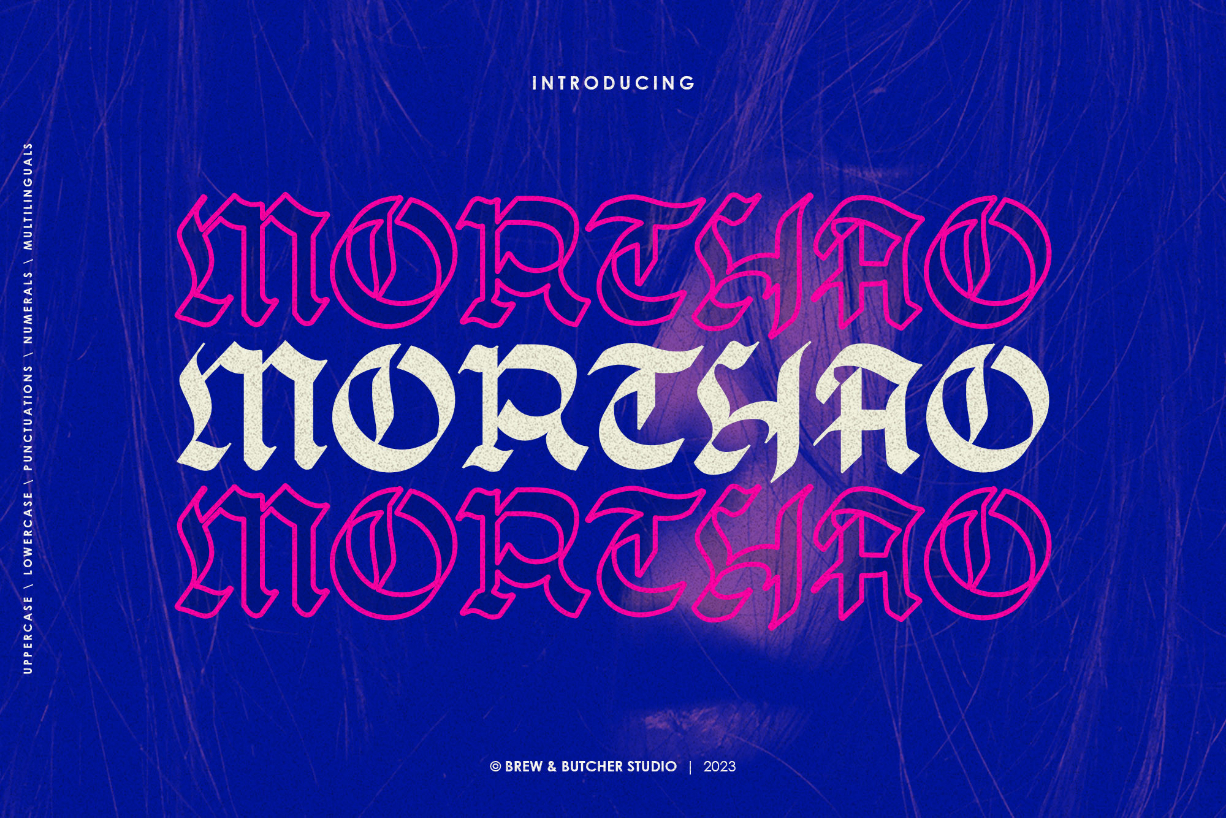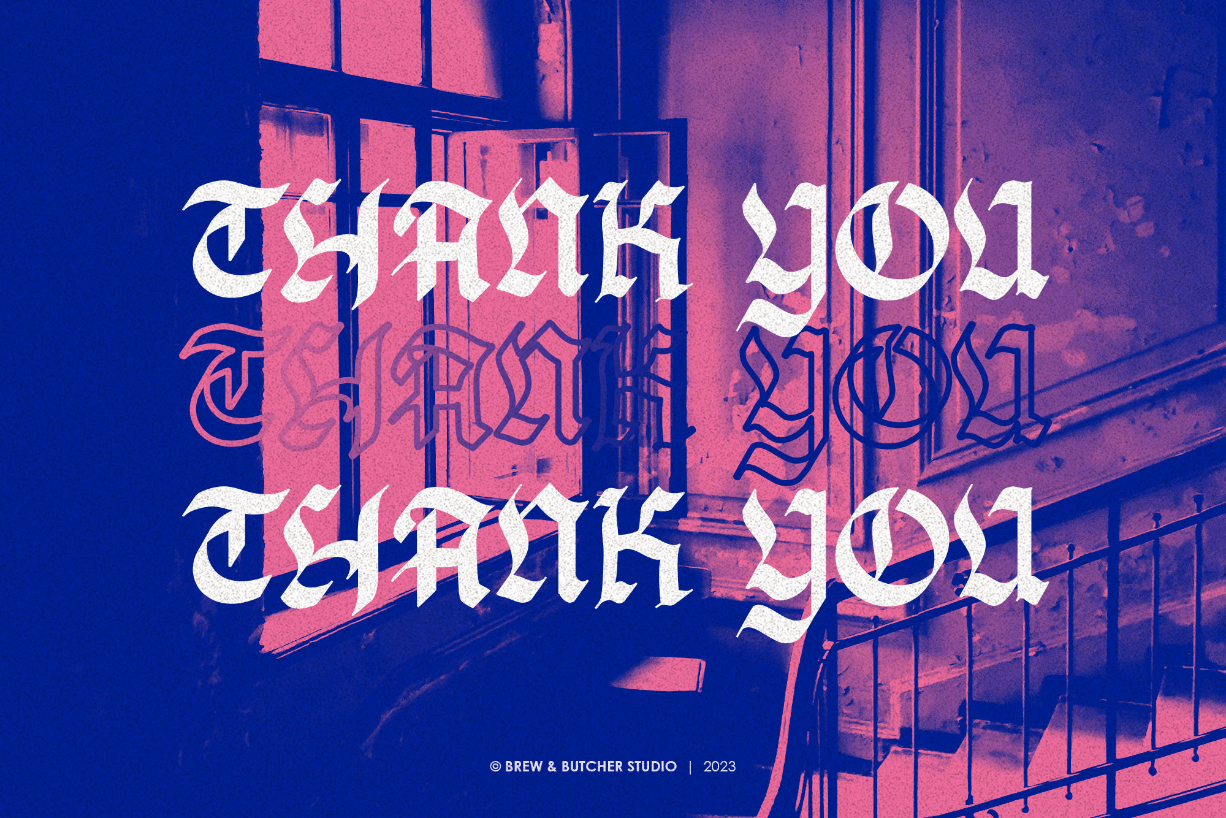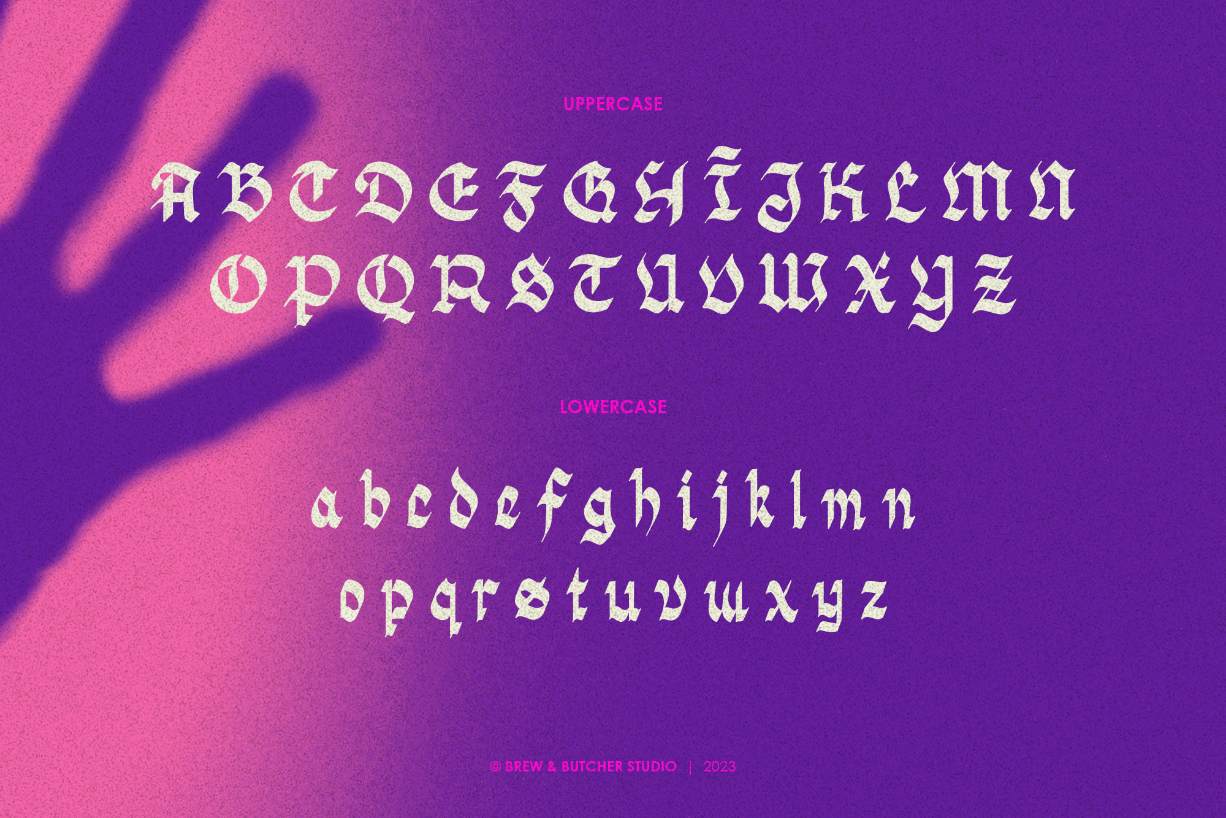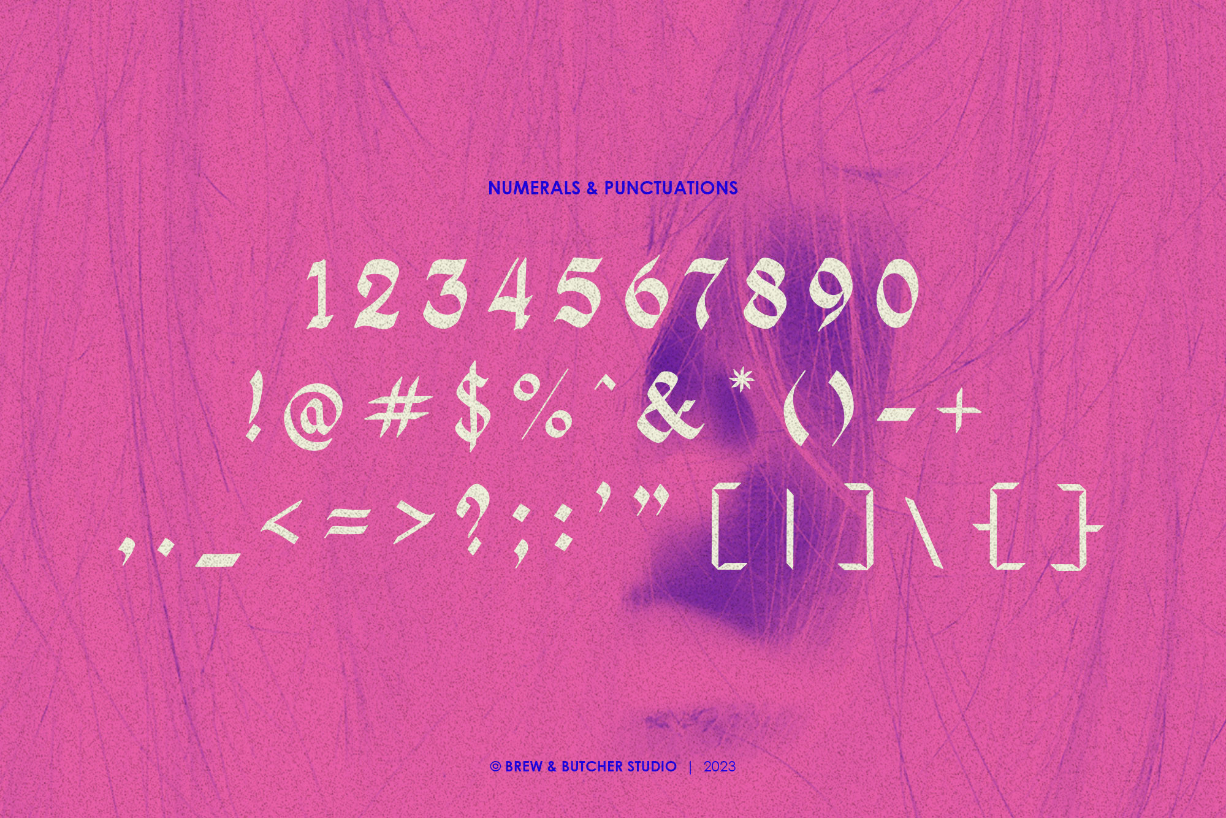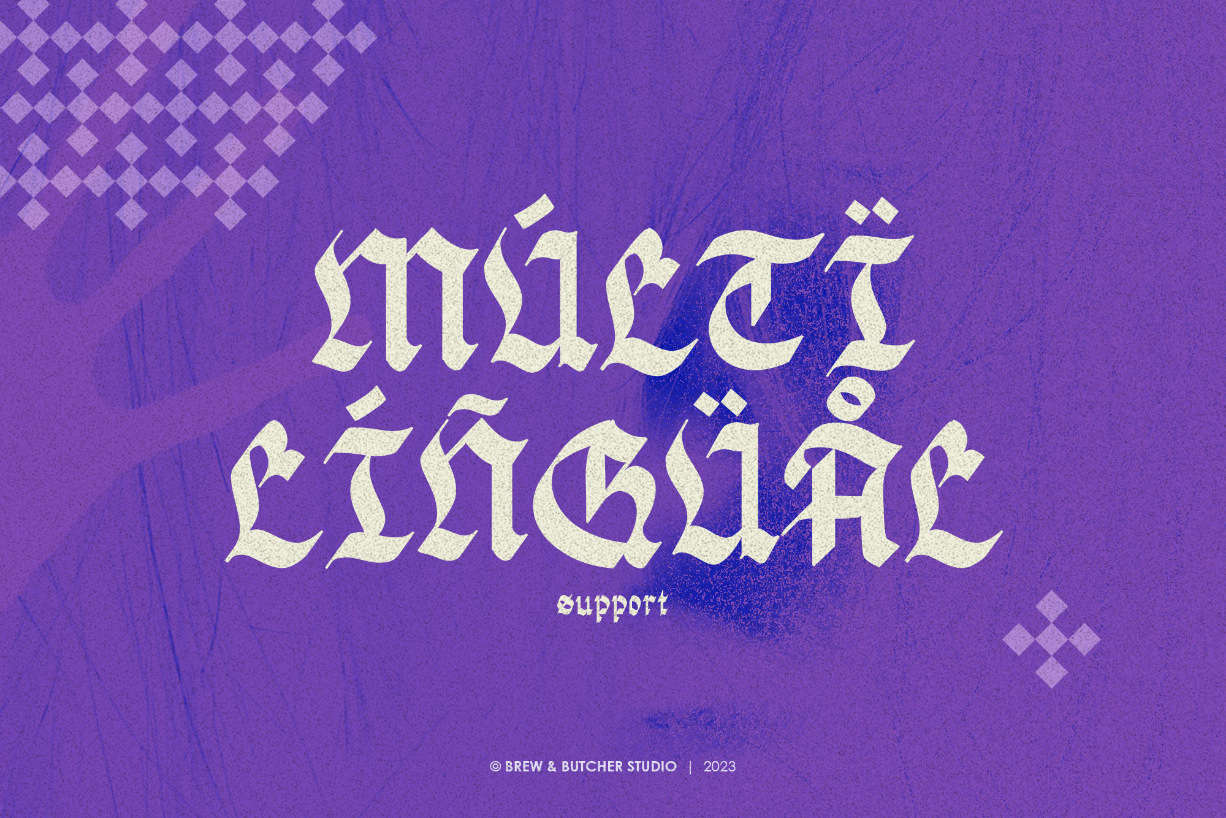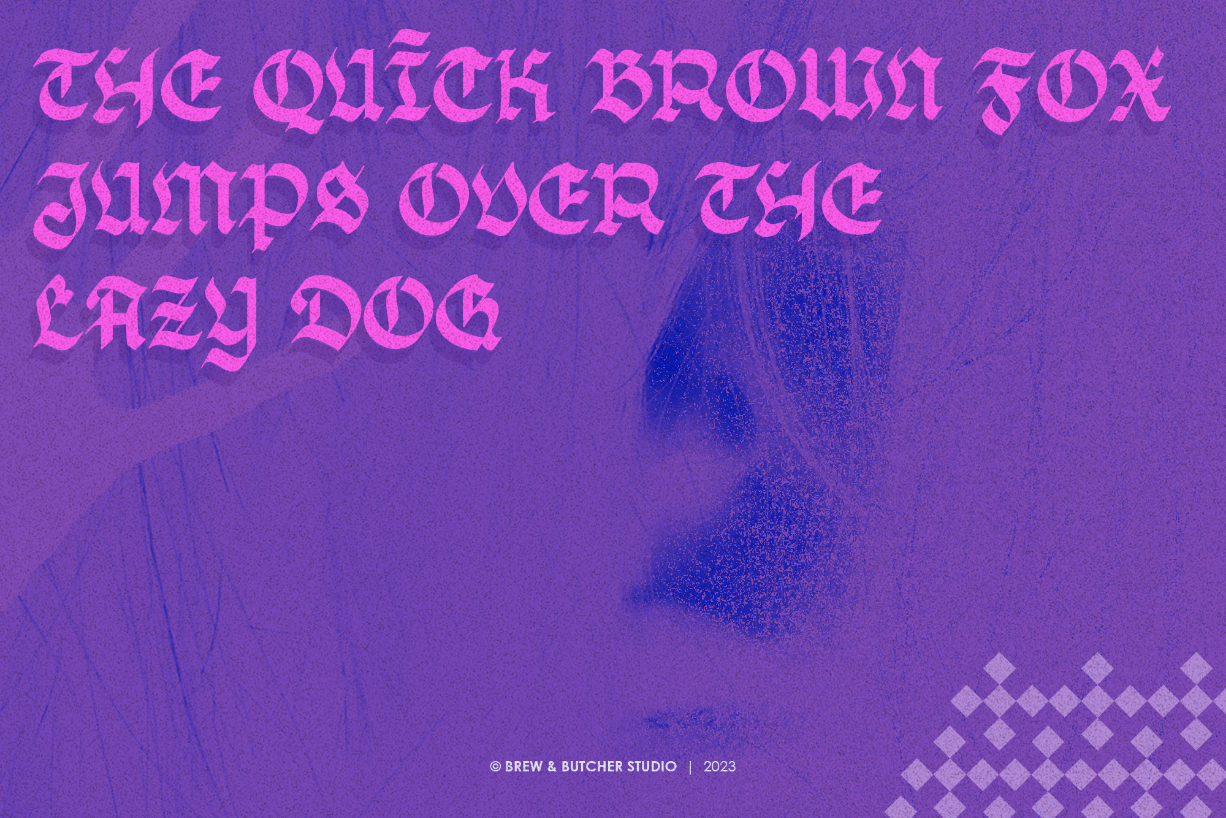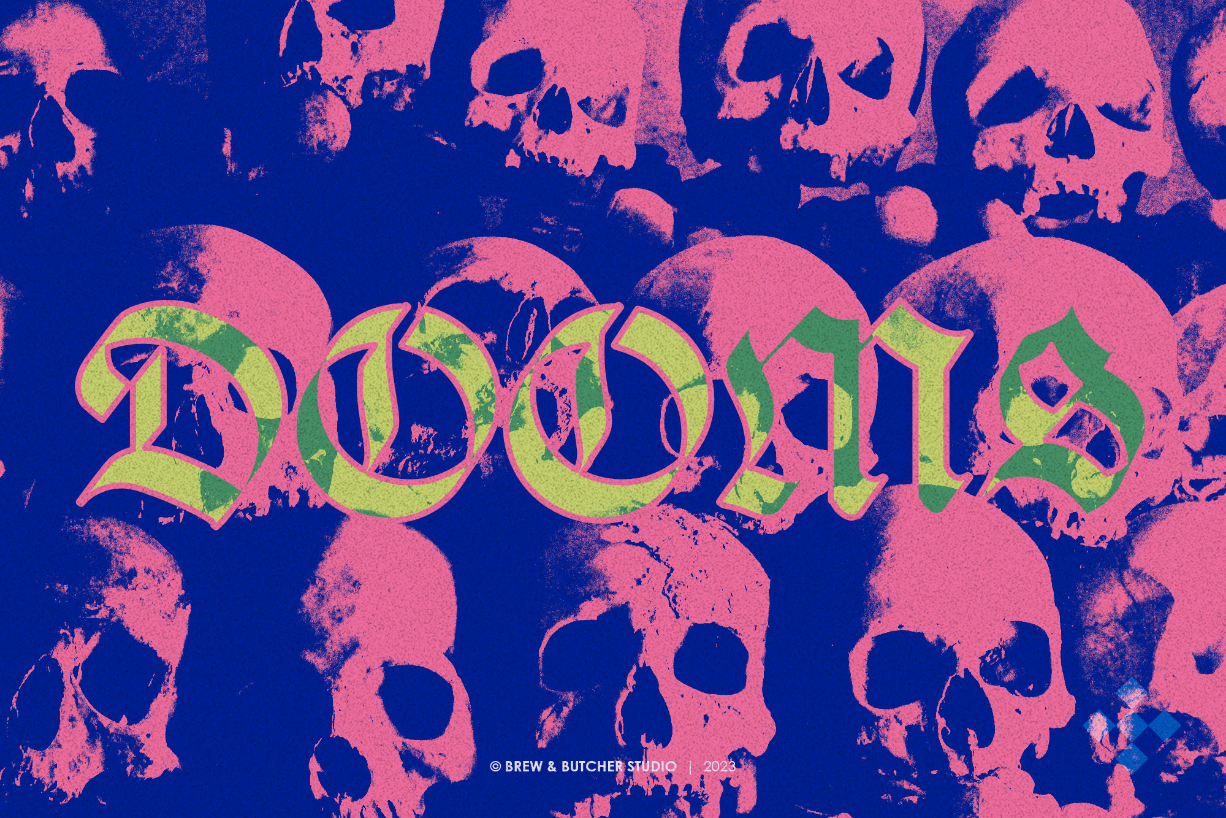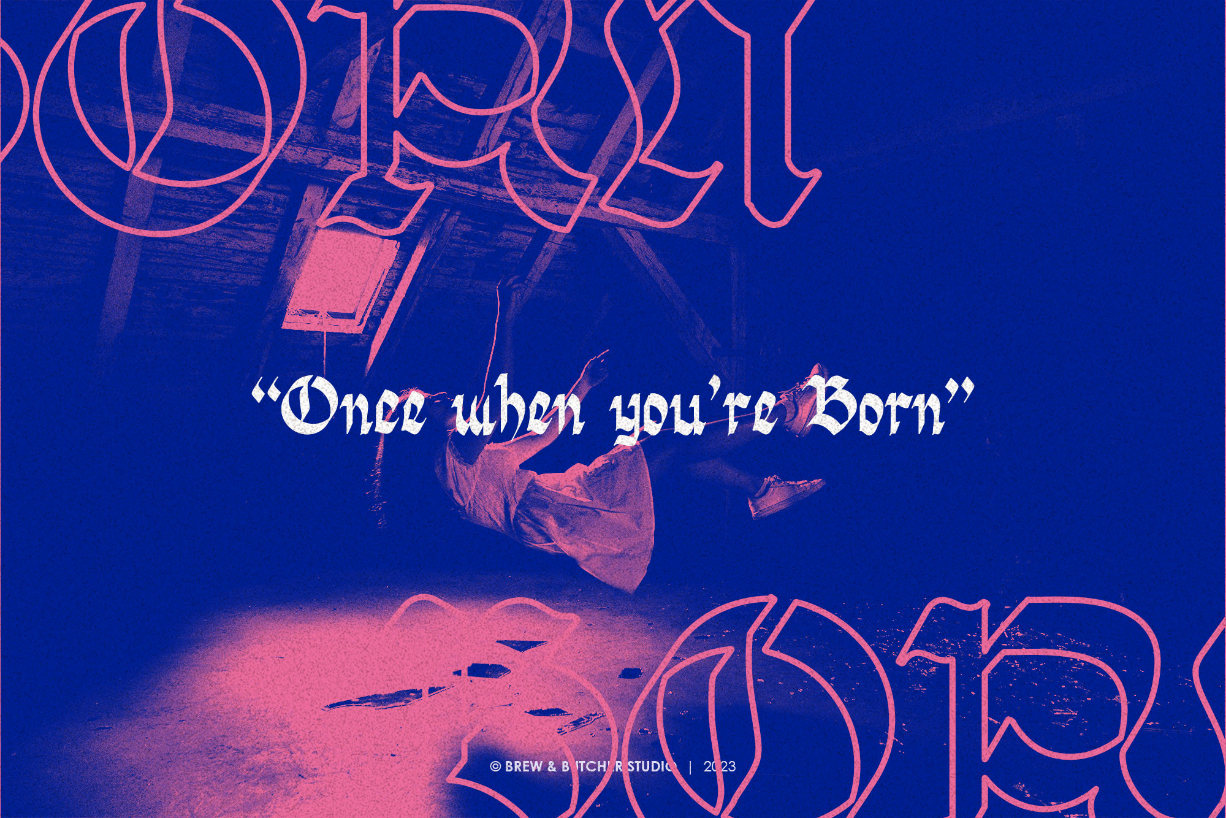
Morthao Font
About Morthao Font
Morthao is a black letter calligraphy with a smooth corner style. This font seems to have a slightly darker feel but still has characteristics when applied with a cheerful and fun design. This font is best to use for headers or headlines, posters, flyers, banners, landing pages, portfolios, name writing, album covers, etc.